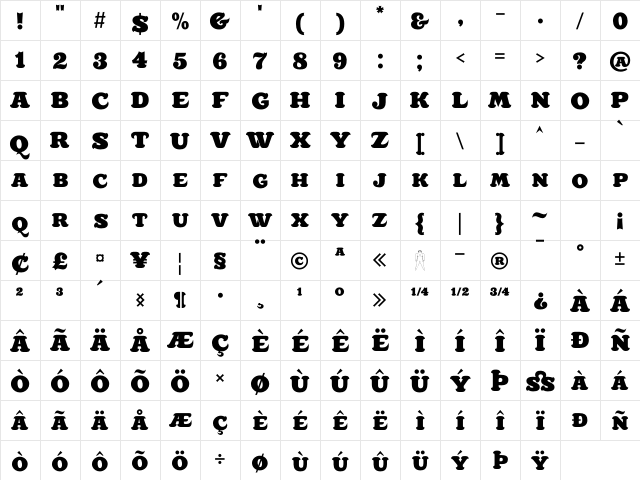
Killernuts Regular
| Foundry | Ryoichi Tsunekawa |
| Designer | Ryoichi Tsunekawa |
Design Context for Killernuts Typeface
Killernuts offers clean, dependable letterforms without strong stylistic allegiance, making it a practical choice for designers who need flexibility.